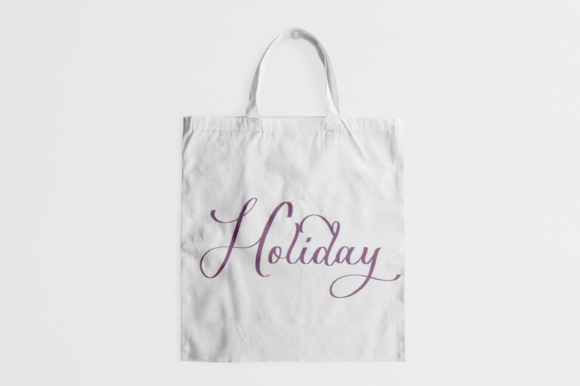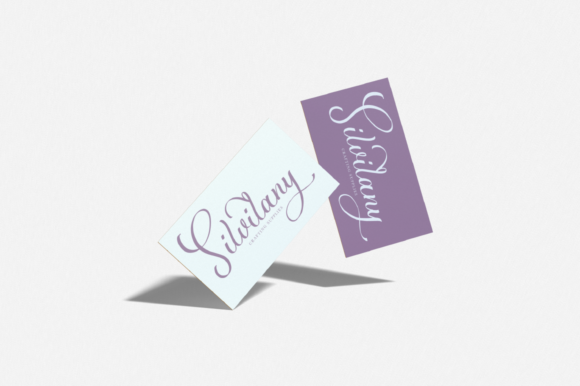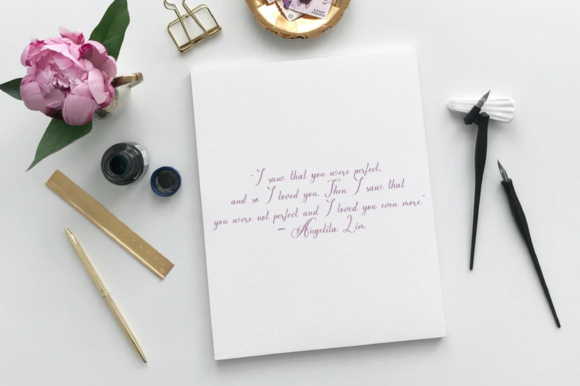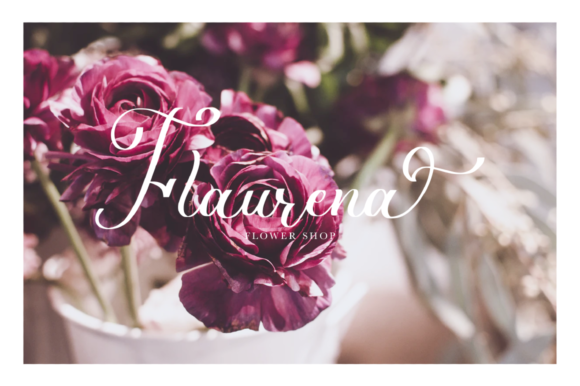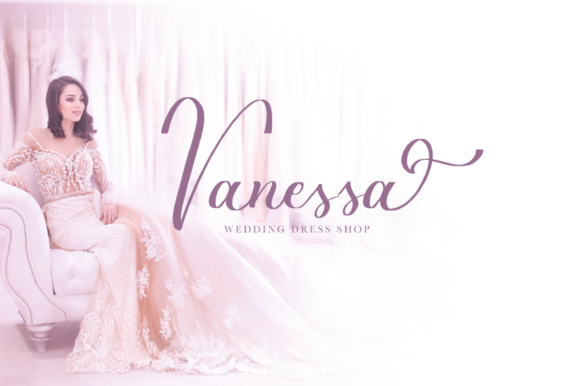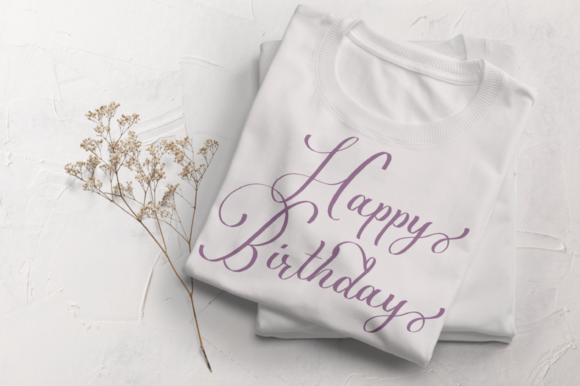
Meet the Font that Brings Your Creations to Life
Have you ever been in the middle of a creative project, pouring your heart and soul into it, and suddenly you know exactly what it needs to take it to the next level? For many designers, that moment comes when they discover the perfect font to match their vision.
Enter the Angeline Font, a delightful script font that’s sure to add a touch of whimsy and charm to your designs. With its playful characters that seem to dance along the baseline, Angeline Font is the perfect companion for your most creative ideas. Whether you’re working on a wedding invitation, a children’s book, or a social media campaign, Angeline Font is sure to make your projects stand out.
What makes Angeline Font truly valuable for designers is its ease of use. PUA encoded, this font allows you to access all glyphs and swashes with ease, giving you the freedom to experiment and express yourself without any limitations.
Key Features of Angeline Font
- Unique Characteristics: Elegant script, sophisticated feel, and refined details, making it perfect for wedding invitations, greeting cards, and other elegant designs.
- Character Count: 650+ glyphs, including Latin, Cyrillic, and Greek alphabets, as well as punctuation and symbols.
- Language Support: Multi-language support, including English, Spanish, French, German, Italian, Portuguese, and many others.
Designer Review: Angeline Font
Overall, I have mixed feelings about the Angeline Font. While it has its unique charm, there are some aspects that could be improved. Here are my thoughts:
- Soft, elegant curves that give the font a delicate touch
- Good legibility, even at smaller font sizes
- Highly versatile, suitable for a wide range of design applications
- Works well with both modern and traditional design styles
- May appear too ornate or over-the-top in certain contexts
- Lack of bold weight options, which can limit its use in headlines
- Some letters may be difficult to read at very small sizes due to their intricate details
While the Angeline Font has its charm, I think it’s best suited for design projects where a touch of elegance and sophistication is desired. However, its limitations may make it less suitable for more functional or straightforward design applications. With some refinement and additional weight options, I think this font has the potential to be a real showstopper.
For best results, use Angeline Font for headings and titles to add a touch of elegance to your designs.
Use Angeline Font for creating custom logos, posters, and other visual elements that require a unique and elegant touch.
Use Angeline Font for creating professional-looking presentations, reports, and documents that require a touch of sophistication.
Tips for Getting the Most Out of Angeline Font
Here are some tips to get the most out of Angeline Font:
- Use Angeline Font in combination with other elegant fonts to create a harmonious design.
- Experiment with different
Alternatives to Angeline Font for Designers
Great Vibes is a modern, elegant script font perfect for creating a luxurious and sophisticated look. It’s ideal for use in branding, invitations, and other materials where a touch of elegance is required.
Compared to Angeline Font, Great Vibes has a more refined and polished appearance, making it suitable for high-end designs. While Angeline Font has a more playful feel, Great Vibes is better suited for formal events and corporate branding.
Alex Brush is a beautiful, handwritten font with a personal touch. It’s perfect for creating a warm and inviting atmosphere in designs such as stationery, menus, and event materials.
Compared to Angeline Font, Alex Brush has a more casual and relaxed feel, making it suitable for designs that require a friendly and approachable tone. While Angeline Font has a more elegant appearance, Alex Brush is better suited for everyday use.
What is the recommended font size for Angeline?
The recommended font size for Angeline is between 12-24 points, depending on the context and design requirements. At smaller sizes, the font may become less legible, while at larger sizes, it may become too bold or overwhelming.
Does Angeline support multilingual characters?
Yes, the Angeline font includes support for a wide range of languages, including Latin, Cyrillic, and Greek. It also includes support for special characters and symbols, making it a versatile font for designers working on multilingual projects.